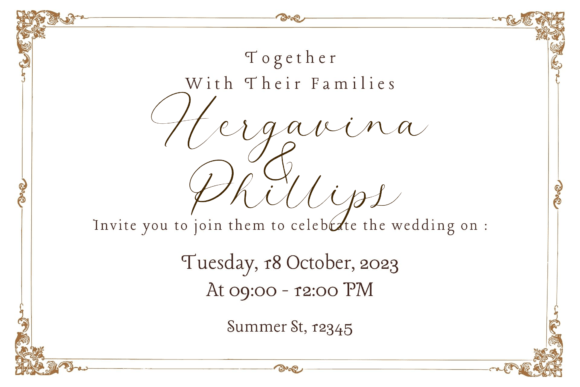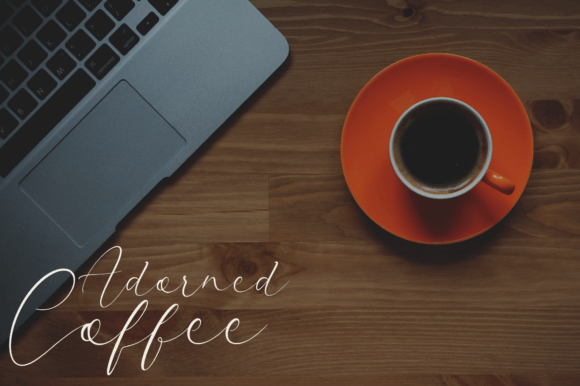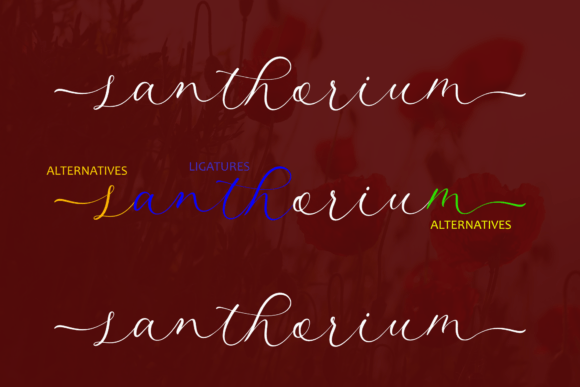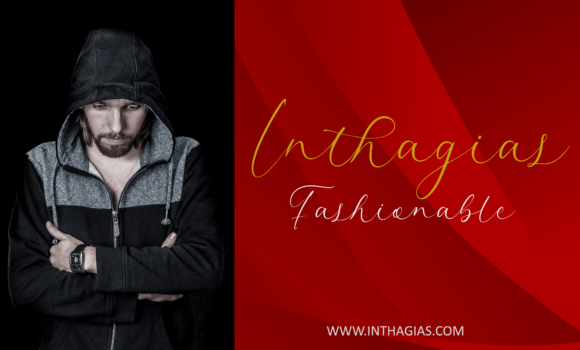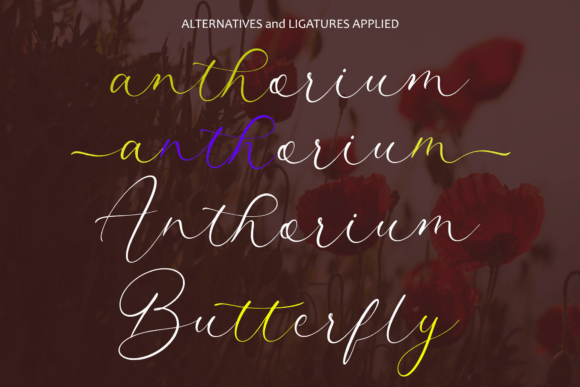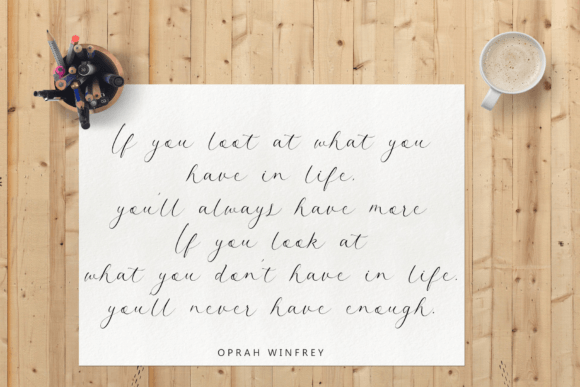
Ah, the eternal quest for the perfect font. I recall working on a project for a client’s wedding invitation, determined to create something truly special. The design was coming along beautifully, but the font just wasn’t cooperating. It was either too formal, too quirky, or just plain boring. That’s when I stumbled upon Anthosan, a beautifully crafted handwritten font that combines elegance and modern charm. And, let me tell you, it was love at first sight! 💕
An Honest Review of Anthosan
- ✨ Unique blend of fluid strokes and natural imperfections, giving it a personal touch
- ✅ Elegant and modern charm, perfect for a variety of design projects
- 💫 Features a range of ligatures and alternates, giving you flexibility and creative freedom
- 🎨 Perfect for invitations, greeting cards, branding, and more
While Anthosan is an amazing font, there are a few things to keep in mind. 🤔 For example, some of the ligatures and alternates can be a bit finicky to access, especially for beginners. Additionally, ⚠️ the font may not be suitable for very small text sizes or body text, as it can become a bit too ornate.
The Story Behind Anthosan
Anthosan was designed with the intention of creating a font that would bring a personal touch to any project. The designer, inspired by the beauty of handwritten scripts, aimed to craft a font that would be both elegant and modern. With its unique blend of fluid strokes and natural imperfections, Anthosan is the perfect choice for designers looking to add a touch of warmth and individuality to their designs.
Q: Can I use Anthosan for my client’s branding project?
A: Yes, Anthosan is perfect for branding projects! Its unique blend of elegance and modern charm makes it an excellent choice for logos, business cards, and more.
Q: Is Anthosan suitable for body text?
A: While Anthosan is a beautiful font, it’s best suited for display text or headings. For body text, you may want to choose a font with better legibility.